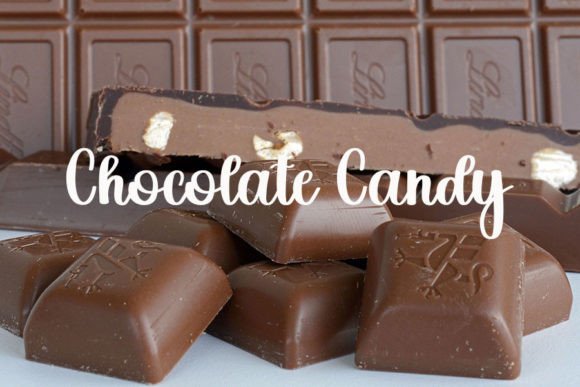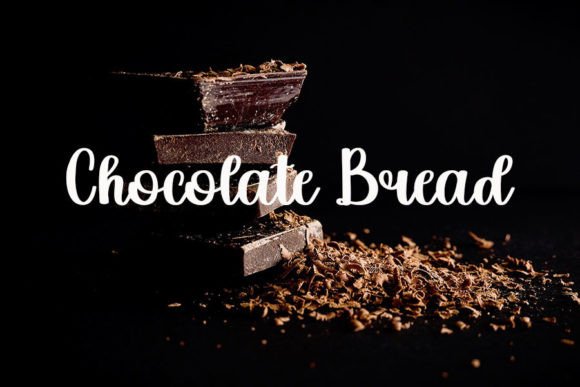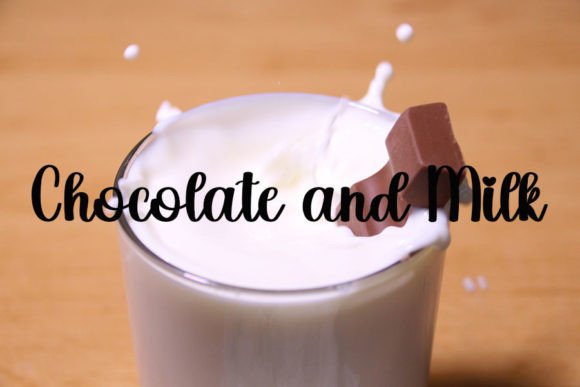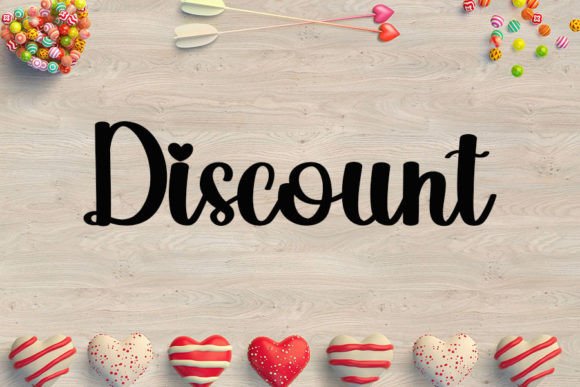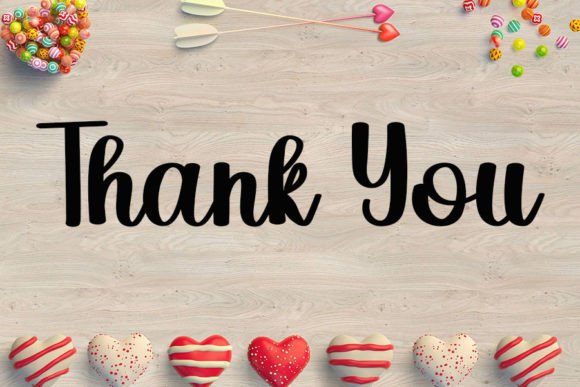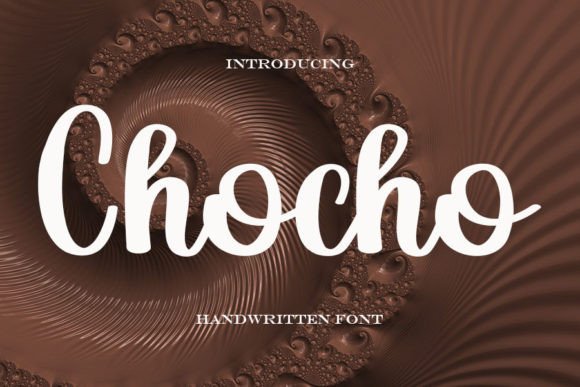
Discover the Elegance of Chocho Font: Elevate Your Designs with a Timeless Handwritten Style
Are you on the hunt for a font that adds a touch of elegance and sophistication to your designs? Look no further than the Chocho Font. This beautiful handwritten font is described by its elegant touch, making it perfect for a wide range of projects. From crafting stunning visual content to creating eye-catching titles, Chocho Font is sure to fall into your heart with its incredibly distinct and timeless style.
The Unique Charm of Chocho Font
Chocho Font boasts a unique charm that sets it apart from other fonts. Its elegant and neat handwritten style gives off a sense of refinement and luxury, making it ideal for designers and crafters who want to add a touch of sophistication to their work. Whether you’re creating a logo, a brochure, or a social media graphic, Chocho Font is sure to make your design stand out.
Key Features of Chocho Font
• Elegant and Refined: Chocho Font features an elegant and refined handwritten style that’s perfect for creating sophisticated designs.
• Timeless Style: Unlike trendy fonts that quickly go out of style, Chocho Font has a timeless quality that ensures your designs will remain stylish for years to come.
• Distinct and Readable: Chocho Font is incredibly distinct and easy to read, making it perfect for body text, headings, and titles.
• Versatile: Chocho Font can be used for a wide range of projects, from digital designs to print materials.
How to Use Chocho Font in Your Designs
• Pair it with Other Fonts: Chocho Font pairs well with other fonts, especially sans-serif fonts. Try pairing it with a clean and simple font to create a stunning contrast.
• Use it for Headings and Titles: Chocho Font is perfect for creating eye-catching headings and titles. Use it to add a touch of elegance to your design.
• Experiment with Colors: Chocho Font looks great in a variety of colors. Experiment with different colors to find the one that works best for your design.
Why Designers and Crafters Love Chocho Font
• Unique Style: Chocho Font has a unique style that’s hard to find in other fonts. Its elegant and refined handwritten style makes it perfect for creating sophisticated designs.
• Easy to Read: Chocho Font is incredibly easy to read, making it perfect for body text and other applications where readability is key.
• Versatile: Chocho Font can be used for a wide range of projects, from digital designs to print materials.
In conclusion, Chocho Font is a beautiful and elegant handwritten font that’s perfect for designers and crafters who want to add a touch of sophistication to their work. Its unique charm, timeless style, and versatility make it a great choice for a wide range of projects. Whether you’re creating a logo, a brochure, or a social media graphic, Chocho Font is sure to make your design stand out. So why wait? Fall in love with Chocho Font and start creating spectacular designs today!